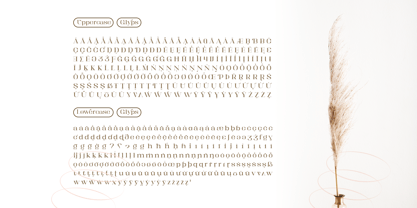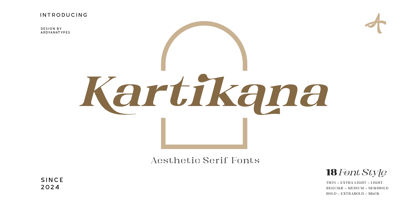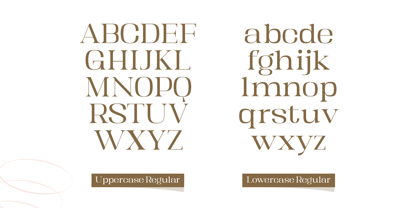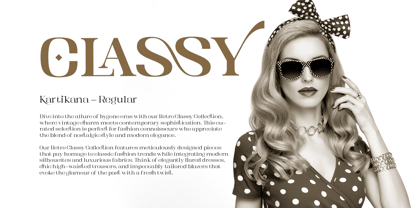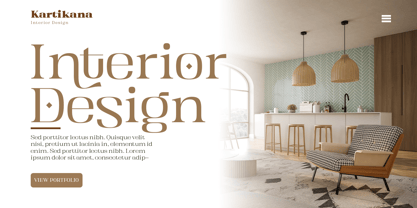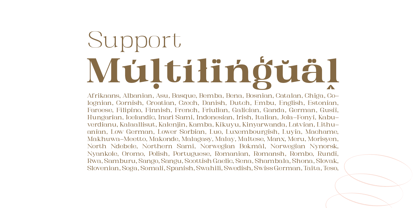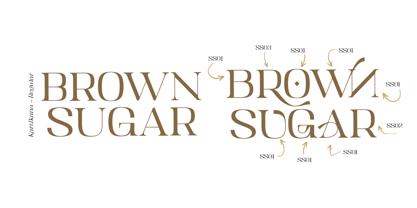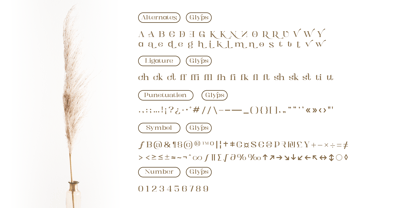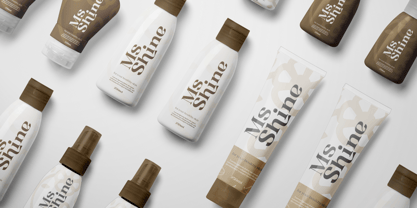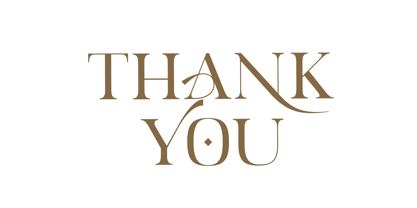
Kartikana Serif
The Kartikana Serif Font Family was designed by Ardyana Putra and published by Ardyanatypes. Kartikana Serif contains 18 styles and family package options. More about this family
Kartikana is a serif font that combines classic elegance with a modern touch, resulting in stunning typography that exudes elegance. Inspired by the latest modern font trends, Kartikana comes with a very relevant and chic design, in line with the current popular styles.
Kartikana offers an OpenType feature that allows using a wide variety of styles in one font, providing unlimited flexibility and creativity in your designs. With multilingual support, Kartikana can be used in multiple languages, conveying your message clearly and beautifully worldwide.
This font is perfect for various creative projects, from book covers, magazines, advertisements, and products to movie titles. Whatever your design needs, Kartikana is ready to help you express your vision with unmatched style.